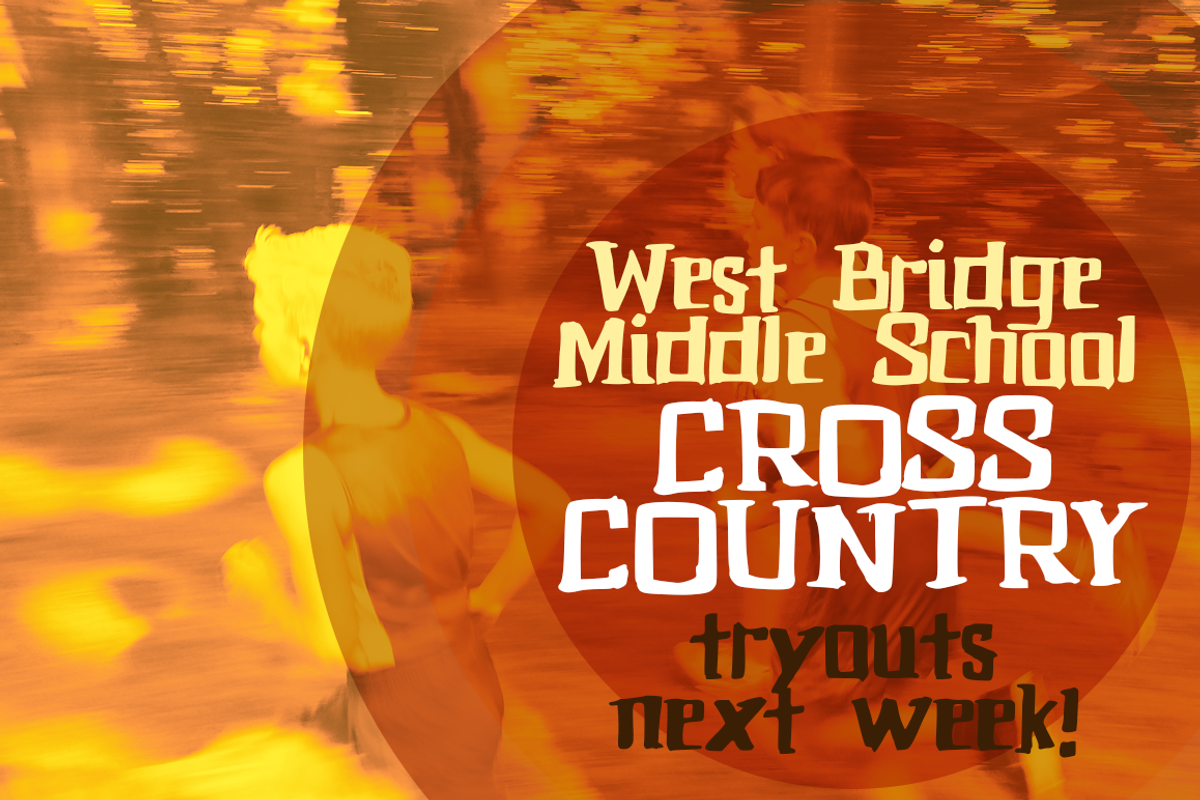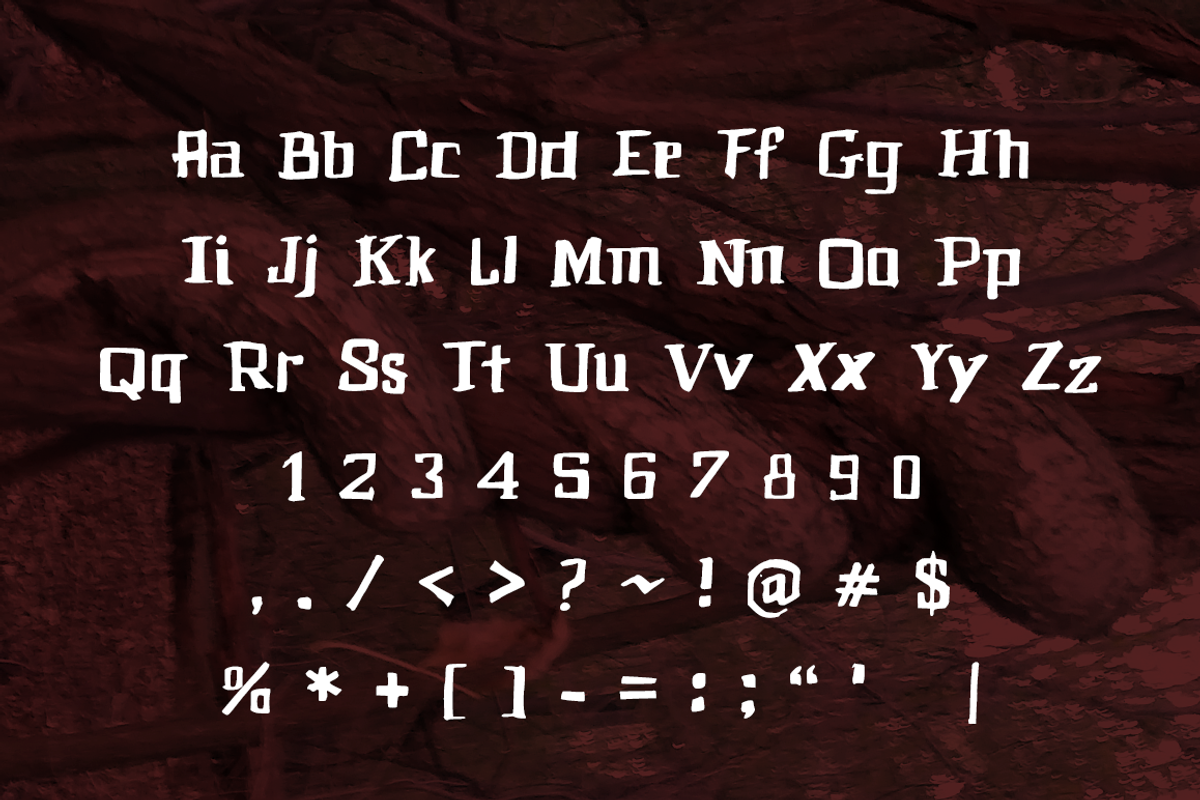
Shock Block Hand Drawn Display Font
Shock Block Hand Drawn Display Font by NorthCoastCreative is a font selected for branding, posters, packaging, typography.
- Shock Block hand-drawn block display font adds a burst of bold or fun expression to your posters, logotype, t-shirts and more with a rough s
Why Shock Block Hand Drawn Display Font is worth a look
Shock Block Hand Drawn Display Font by NorthCoastCreative fits naturally into Branding, posters, packaging, typography.